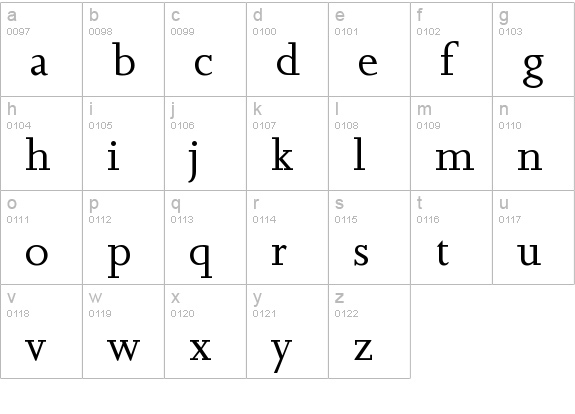
JessicaSerial-Regular is the standard, neutral variant in the JessicaSerial typeface family \xE2\x80\x94 well suited to general body text, paragraphs, and standard typographic work.
JessicaSerial-Regular font is a modern and stylish typeface that exudes elegance and sophistication. With its clean lines and balanced proportions, this font is perfect for a wide range of design projects, from logos to posters to branding materials. Its versatility makes it a great choice for both digital and print applications. Best of all, JessicaSerial-Regular font is completely free! You can easily download it from FontsMarket.com and start using it in your projects right away. Don't miss out on this amazing opportunity to enhance your designs with a high-quality font that won't cost you a penny. Download JessicaSerial-Regular font today and elevate your design game to the next level!